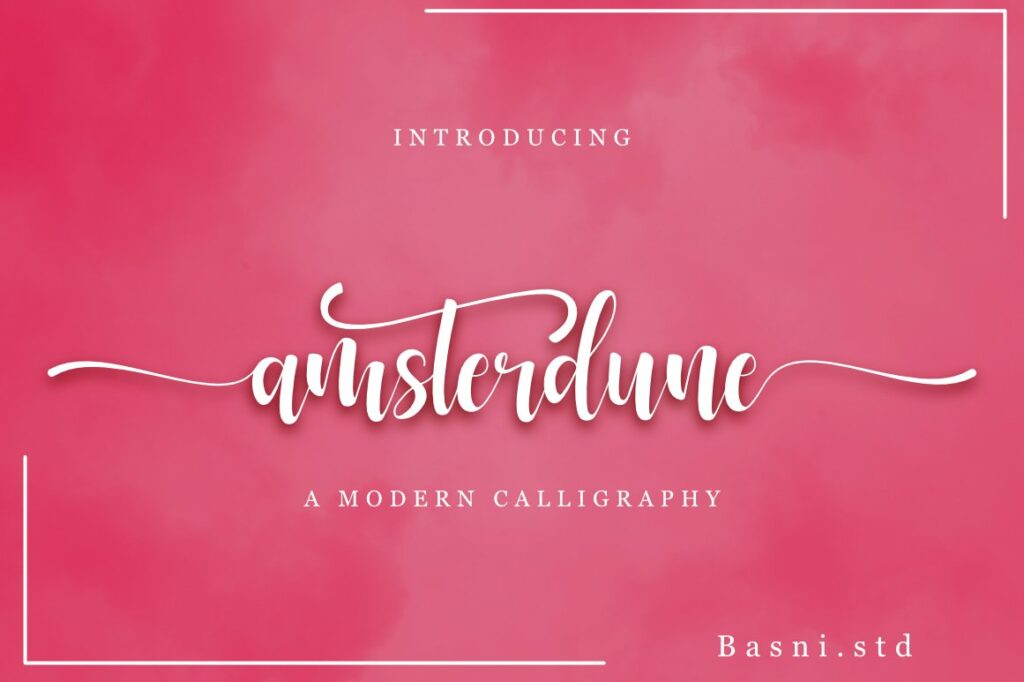
Amsterdune Font
Introducing Amsterdune, a Modern calligraphy font, Amsterdune is perfect for branding, websites, design invitation, and editorial designs. Includes all upper and lower case letters, multilingual support, punctuation, binding and initial and final swash. everything can be easily accessed using software that supports OpenType.
Amsterdune Calligraphy Font